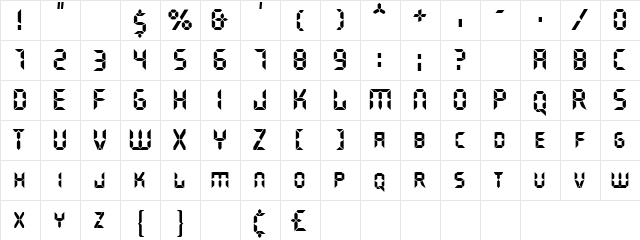
GhostMachine Regular
Design Context for GhostMachine Typeface
GhostMachine is a composed and adaptable typeface that performs quietly and consistently across a wide range of design contexts.